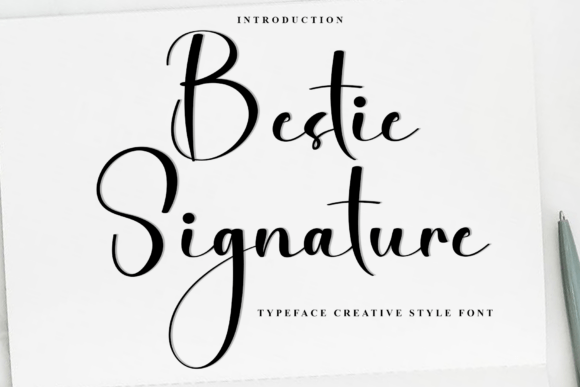
Introducing Bestie Signature: Elevate Your Designs with Elegance and Charm
In the world of typography, a well-crafted font can make all the difference in transforming your designs from ordinary to extraordinary. If you’re on the hunt for a typeface that exudes sophistication, elegance, and a touch of personal flair, look no further than Bestie Signature. This beautiful, modern handwritten font is designed to bring a sense of luxury and refinement to your creations, making it perfect for a wide range of applications, from personal branding and stationery to high-end product designs and beyond.
The Essence of Bestie Signature
Bestie Signature is more than just a font – it’s an expression of style and sophistication. With its smooth curves and stylish letterforms, this signature-style typeface strikes the perfect balance between simplicity and flair. Each stroke is carefully crafted to feel intentional and fluid, giving your text a natural, effortless appearance that’s both beautiful and refined.
Whether you’re designing for a boutique, crafting custom prints, or building a brand identity, Bestie Signature adds that personal, polished touch your work deserves. Its delicate balance between simplicity and flair makes it versatile for both minimal and decorative aesthetics, ensuring that it will seamlessly integrate with your existing design style.
Applications for Bestie Signature
The versatility of Bestie Signature makes it suitable for a wide range of applications, including:
- Personal Branding: Establish a strong brand identity with a font that exudes elegance and sophistication.
- Stationery: Elevate your stationery designs with a touch of luxury and refinement.
- High-End Product Designs: Add a sense of sophistication and glamour to your product designs.
- Logos: Create a lasting impression with a logo that features a beautiful, signature-style typeface.
- Wedding Invitations: Make your wedding invitations truly special with a font that’s both elegant and romantic.
- Packaging: Stand out in a crowded market with packaging that features a unique and stylish font.
- Quotes and Social Media Templates: Add a touch of sophistication to your quotes and social media templates.
Why Choose Bestie Signature?
With so many fonts to choose from, why should you choose Bestie Signature? Here are just a few reasons why this beautiful typeface stands out from the rest:
- Elegance and Sophistication: Bestie Signature exudes elegance and sophistication, making it perfect for high-end designs.
- Versatility: This font is versatile enough to be used in a wide range of applications, from personal branding to packaging.
- Easy to Read: Despite its elegant appearance, Bestie Signature is easy to read, making it perfect for body text and headlines.
- Unique and Stylish: This font is sure to make your designs stand out with its unique and stylish letterforms.
Tips for Using Bestie Signature
To get the most out of Bestie Signature, here are a few tips to keep in mind:
- Use it Sparingly: While Bestie Signature is a beautiful font, it’s best used sparingly to avoid overwhelming your designs.
- Pair it with Other Fonts: Experiment with pairing Bestie Signature with other fonts to create a unique and stylish contrast.
- Adjust the Size and Color: Don’t be afraid to adjust the size and color of Bestie Signature to suit your design needs.
In conclusion, Bestie Signature is a beautiful, modern handwritten font that’s perfect for anyone looking to add a touch of elegance and sophistication to their designs. With its smooth curves, stylish letterforms, and versatile nature, this font is sure to become a staple in your design toolkit. Whether you’re designing for a boutique, crafting custom prints, or building a brand identity, Bestie Signature is the perfect choice. So why wait? Let your designs speak with confidence and beauty – let them wear the Bestie Signature.